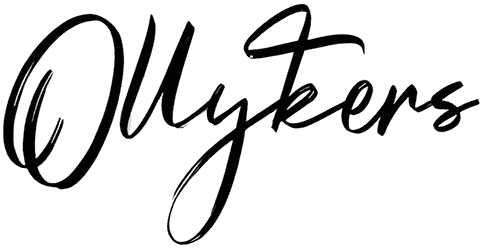
Ollykers Font
Elegance and refinement are the first words that come to mind after seeing Ollykers because of its thin lines and gentle curves. This brush font makes an unforgettable effect on readers’ minds which makes it a perfect choice for Valentine’s letters, wedding cards, etc.
This font won’t come with numbers or punctuation marks nevertheless, the quality of the rest of the collection is more than enough for making spectacular artworks.